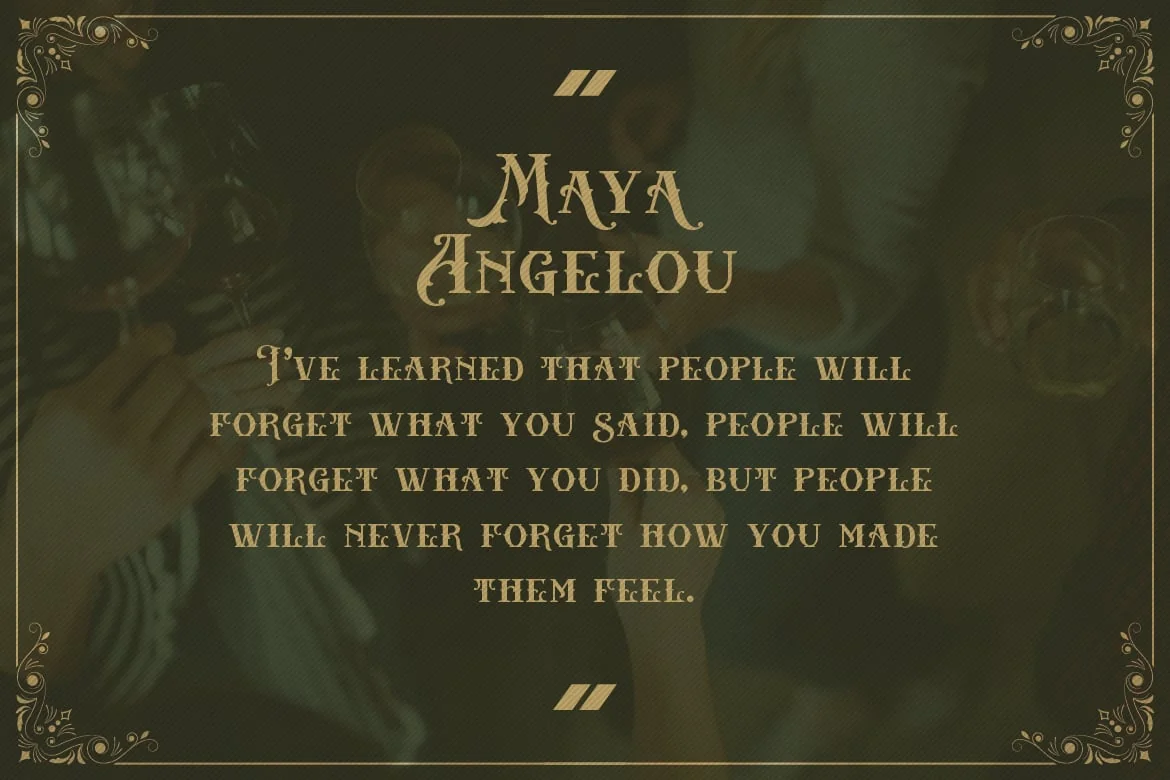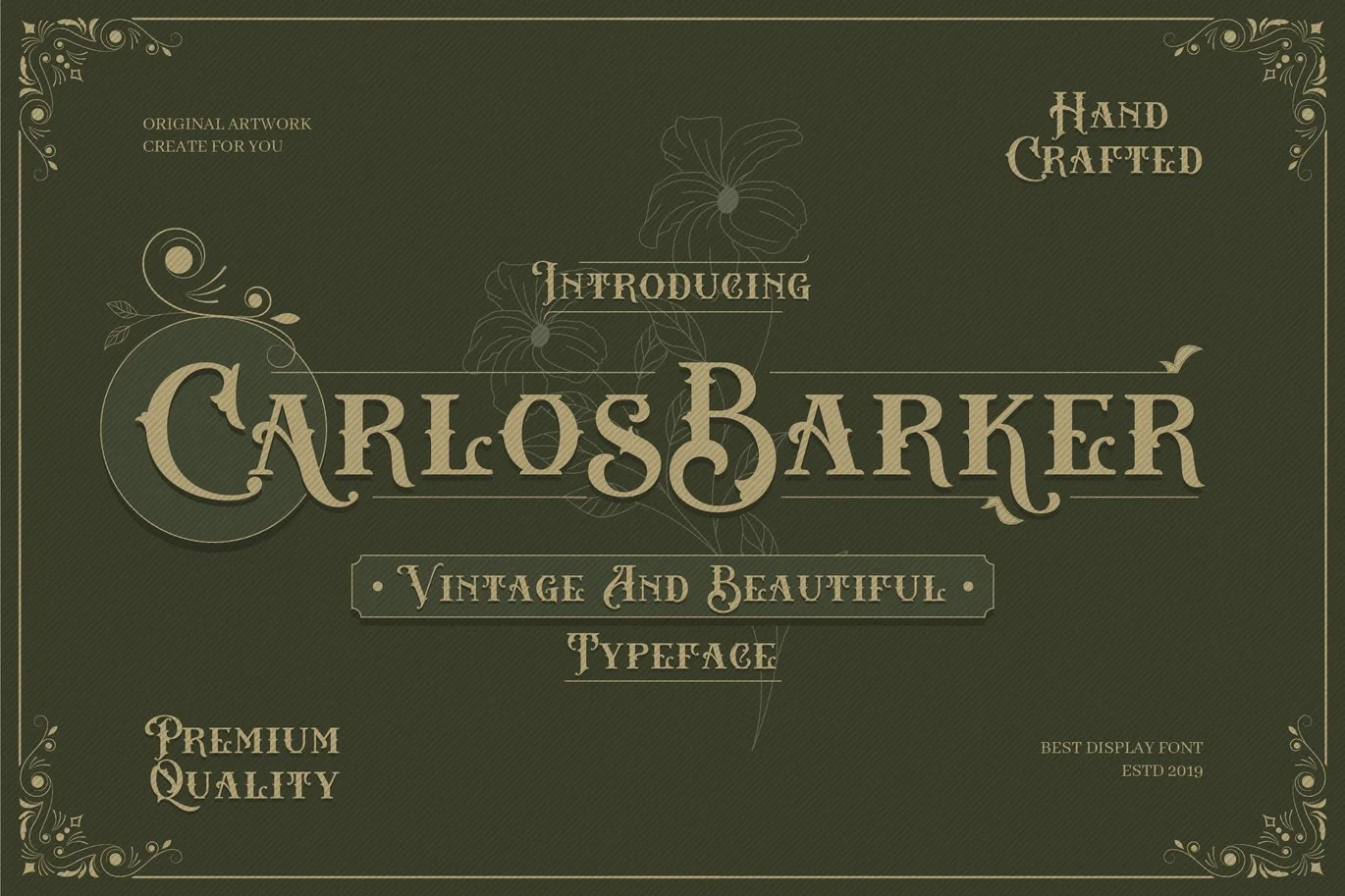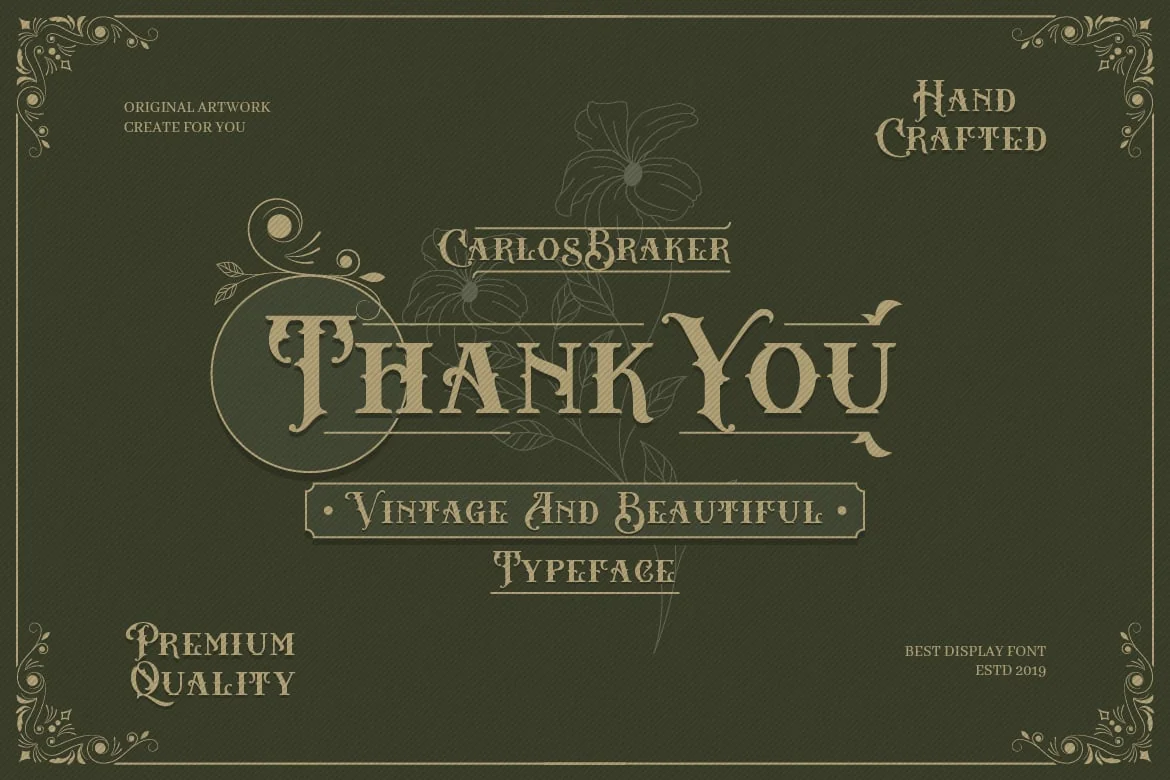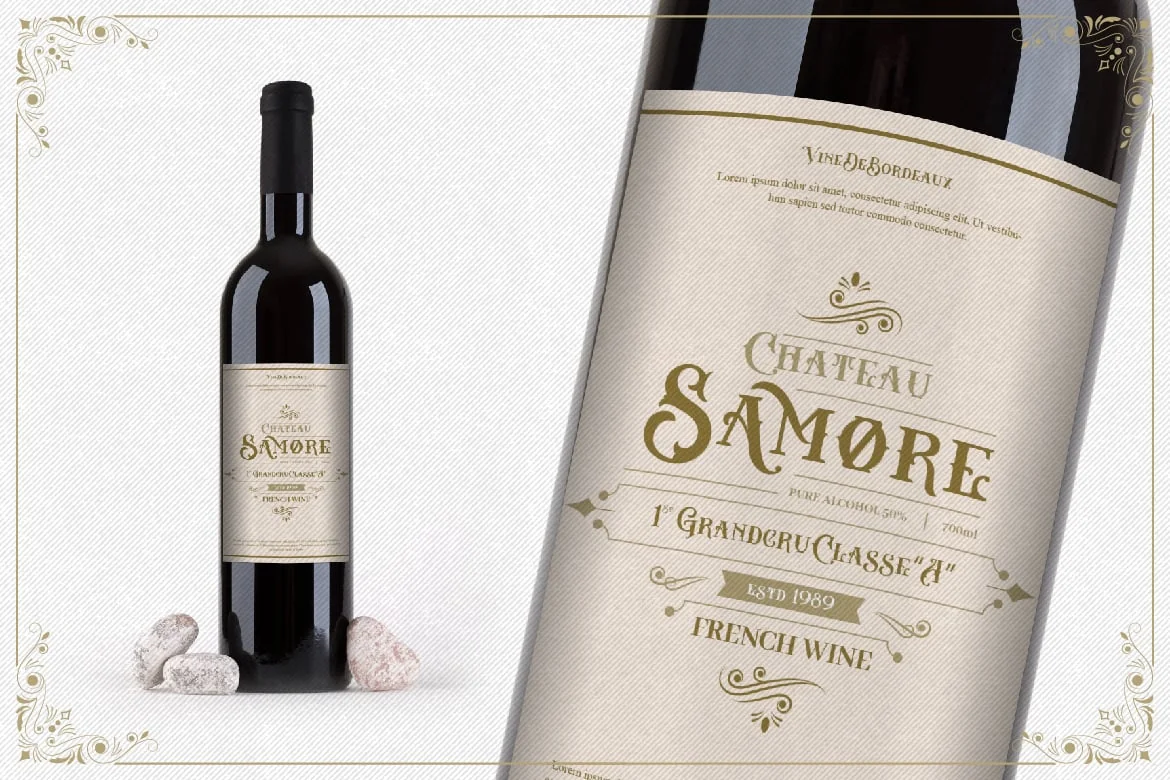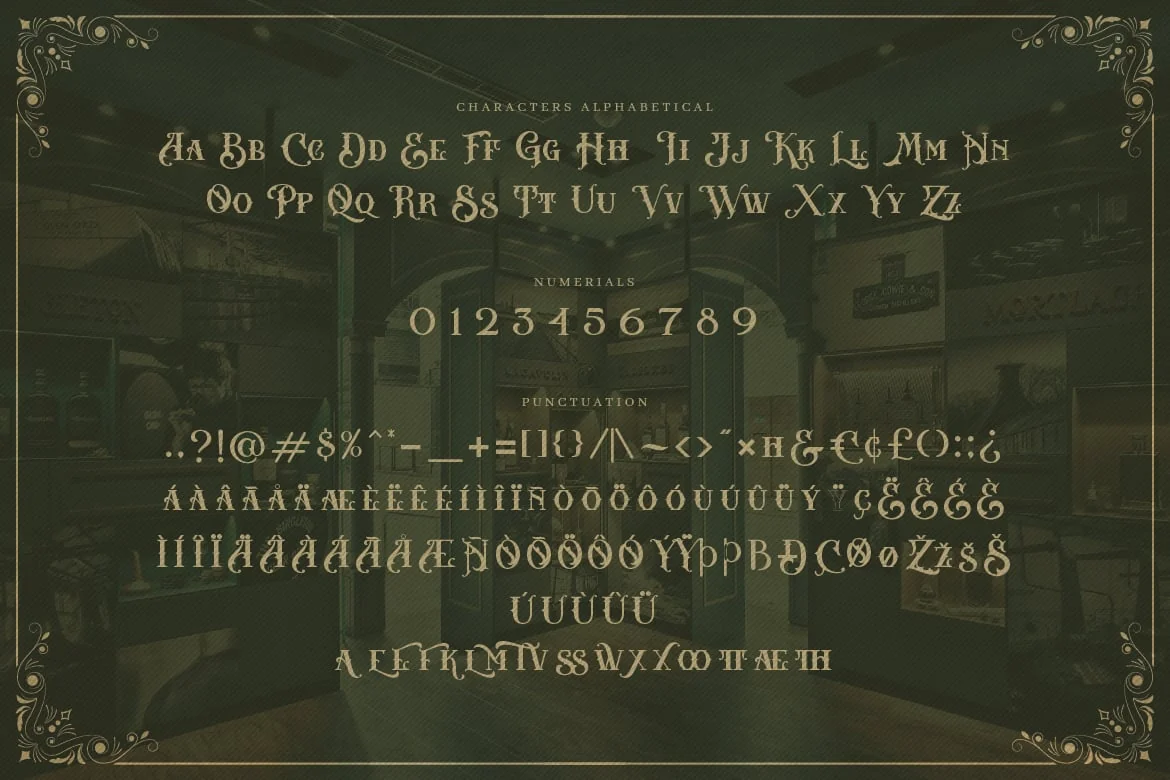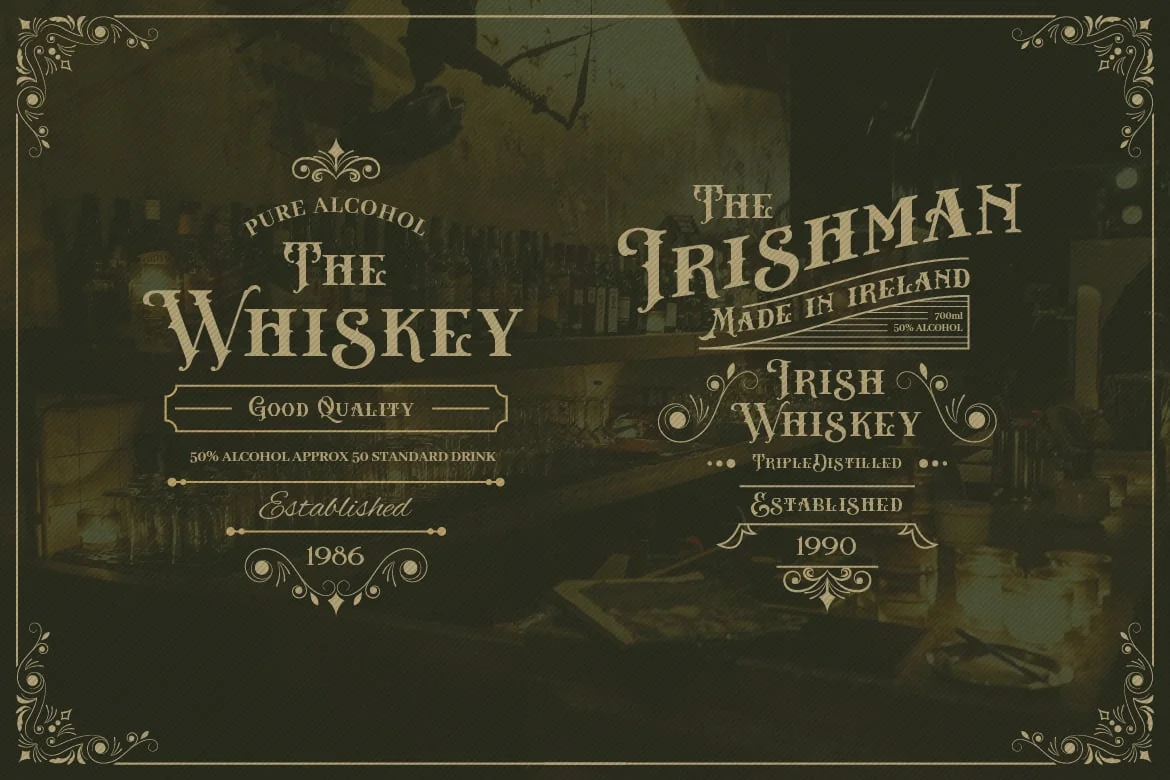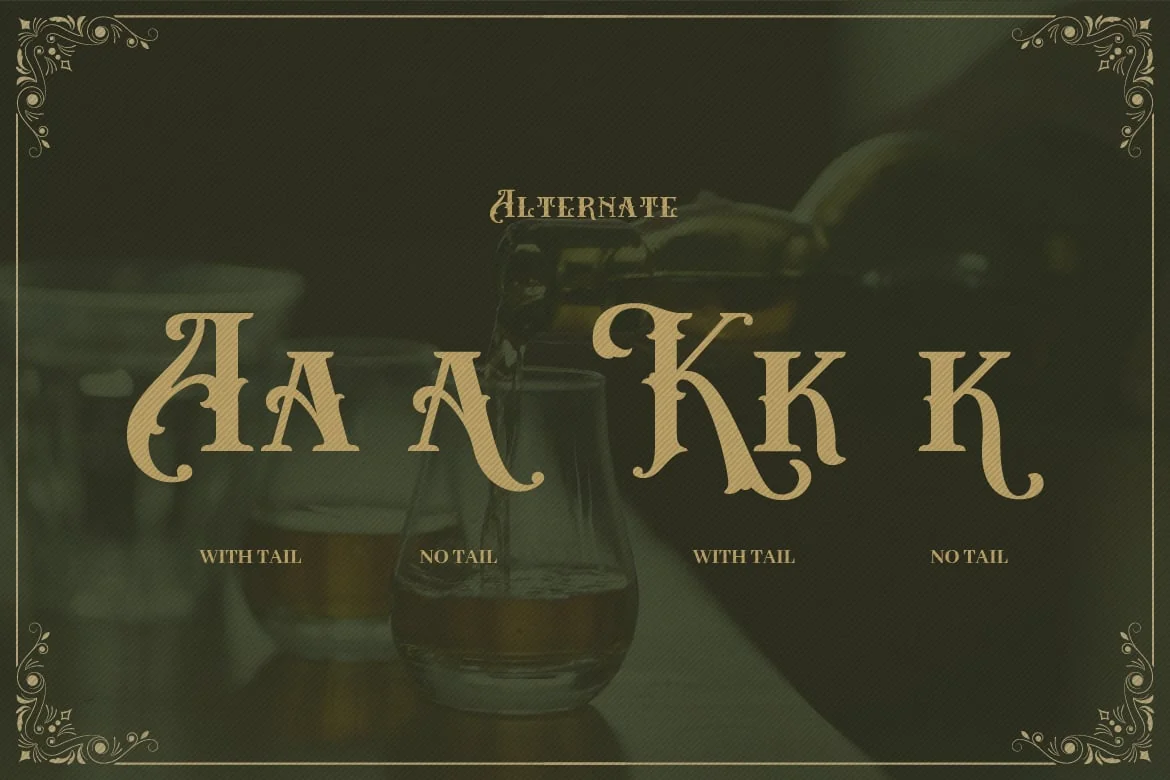
Carlos Barker – Vintage Victorian Font
Introducing Carlos Barker font. Are you looking for a bold vintage victorian font that has an elegant feeling? We can help! Try to download our Carlos Barkes font. The font is suitable to use for any occasion such as book, logo, print, game, event, music, invitation, quotes, product, label and others π